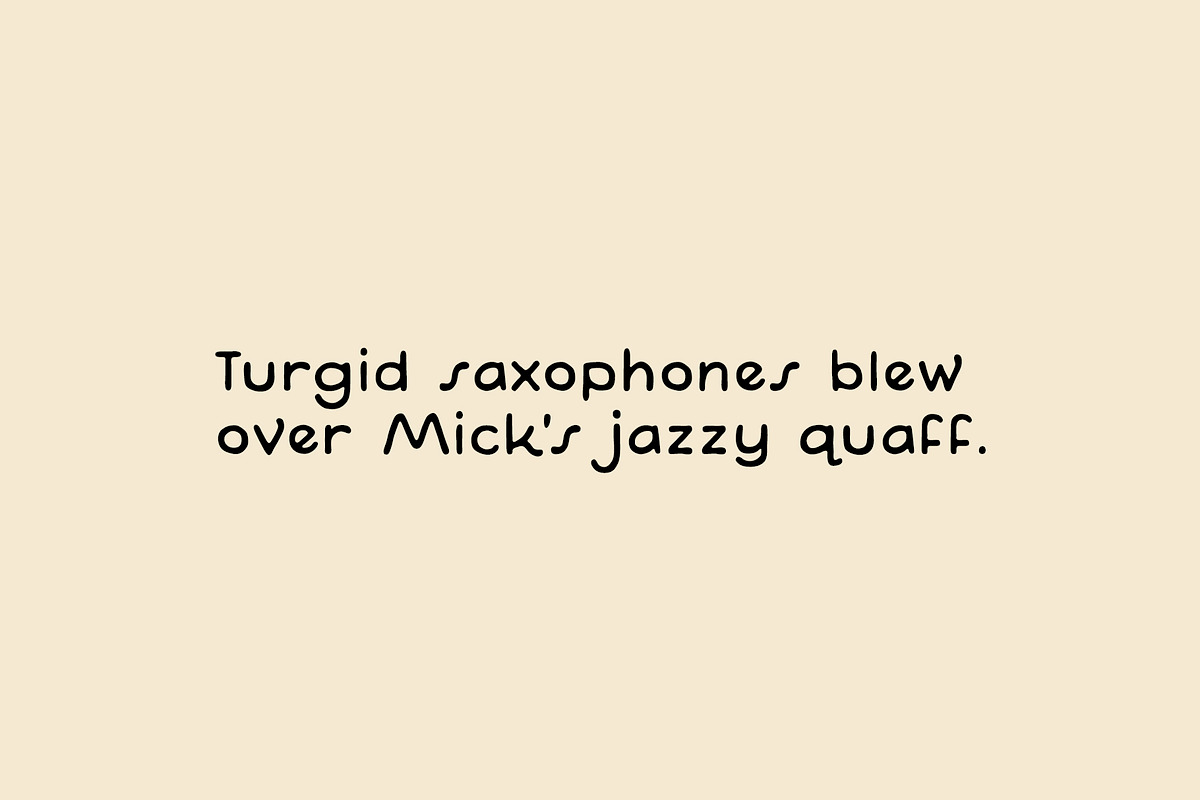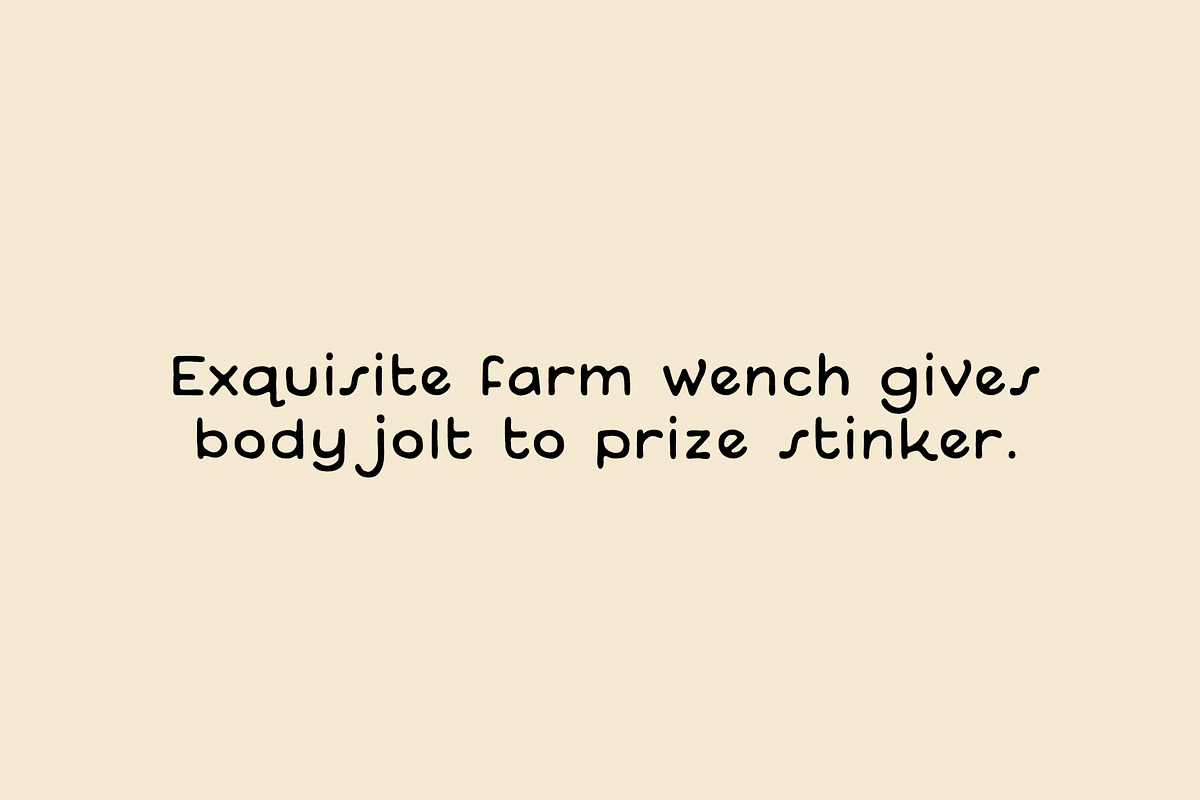
Motherlands
So I'm really into maps, and I was in the library looking at some stuff from World War II and found an interest in some type that was displayed on the maps. I haven't been able to find any replications of it, so I thought I'd just do it myself. This font is named "Motherlands" and is compatible with 74 languages.